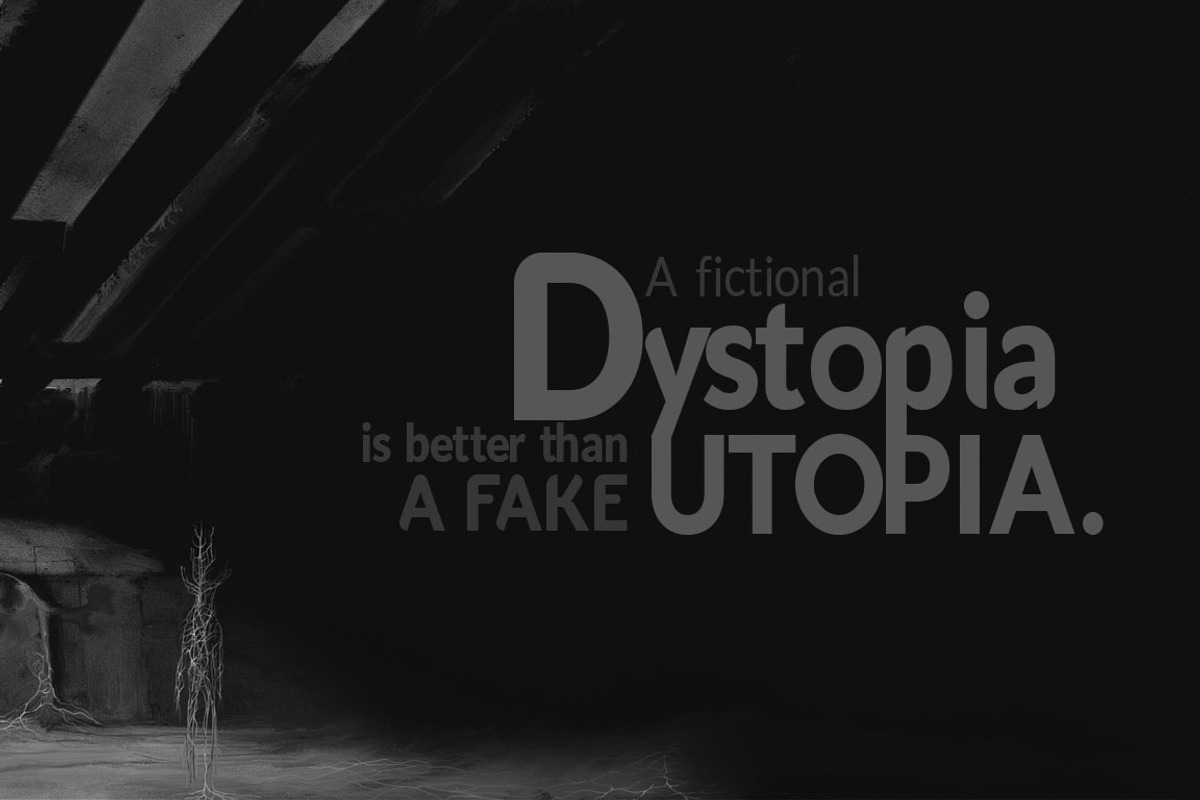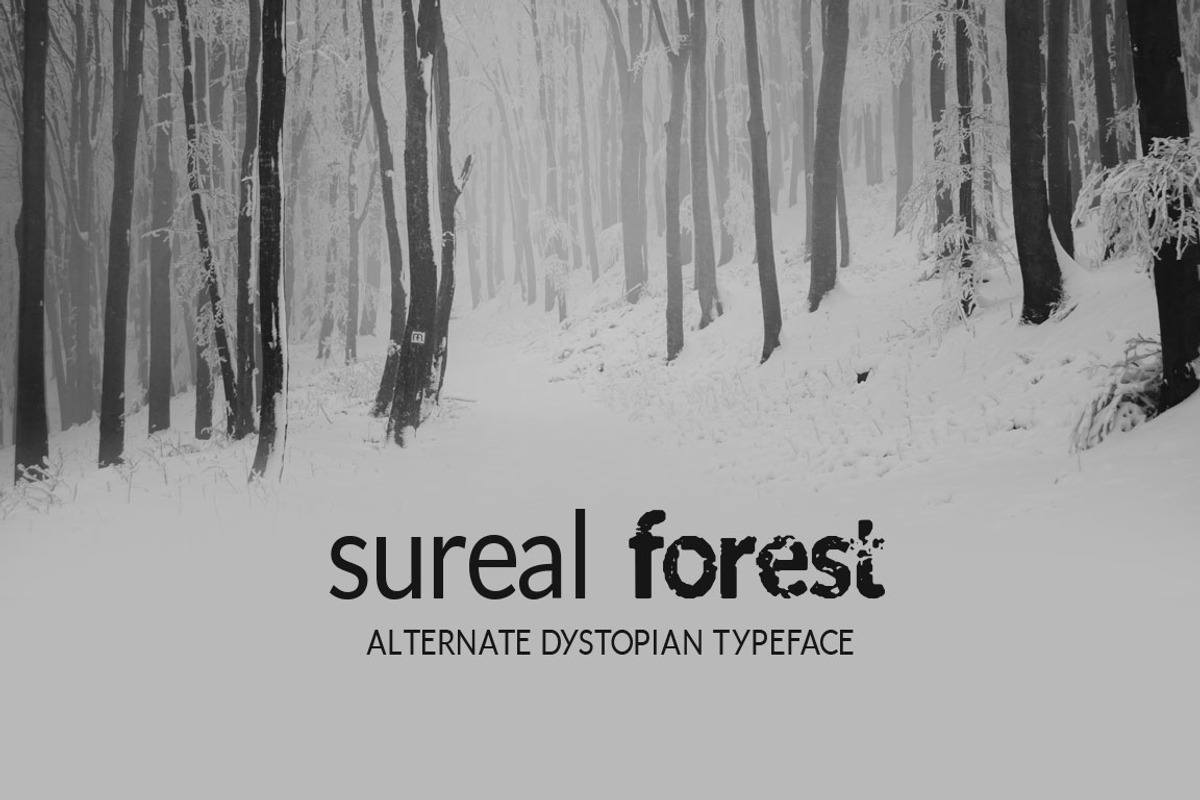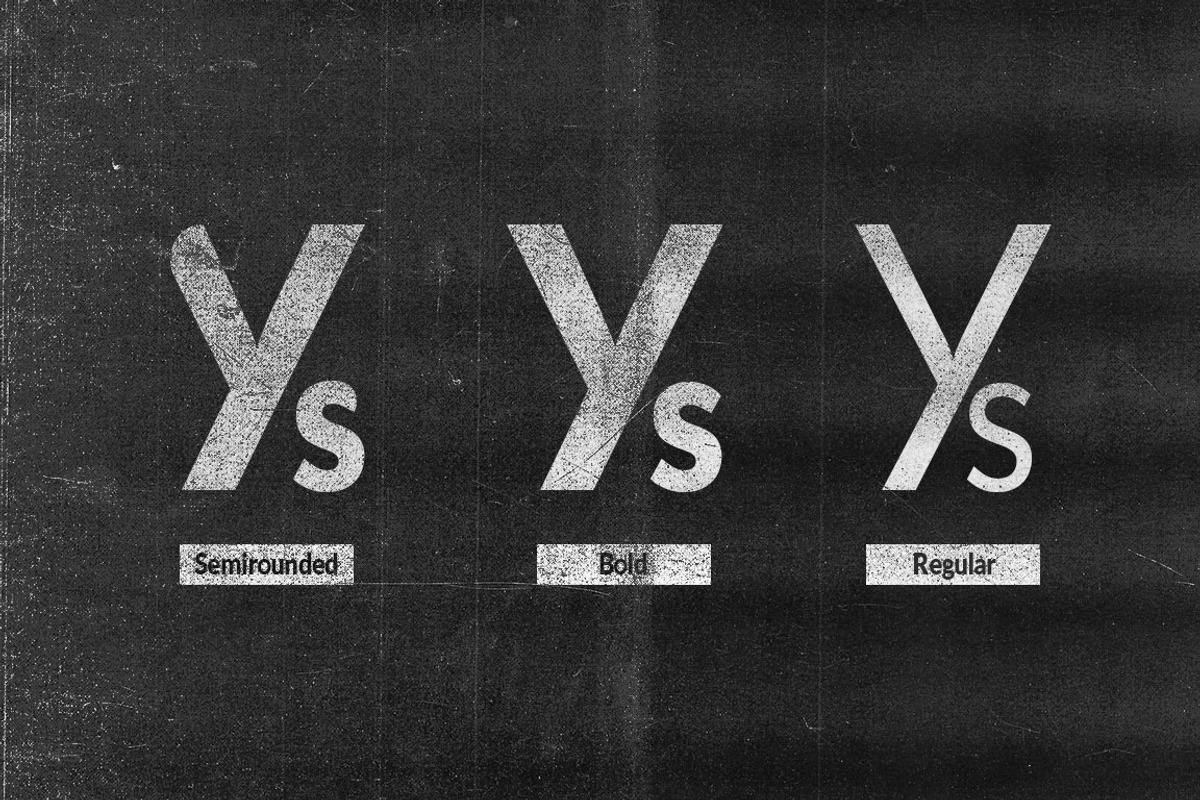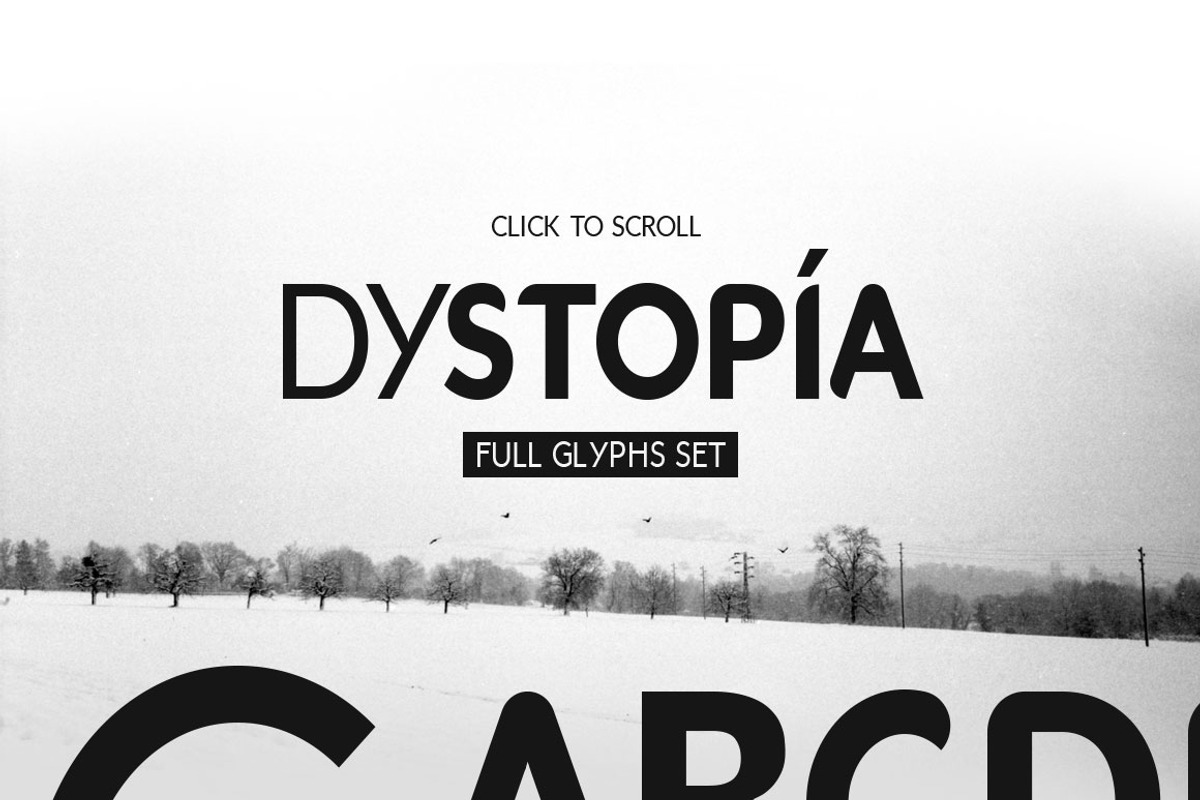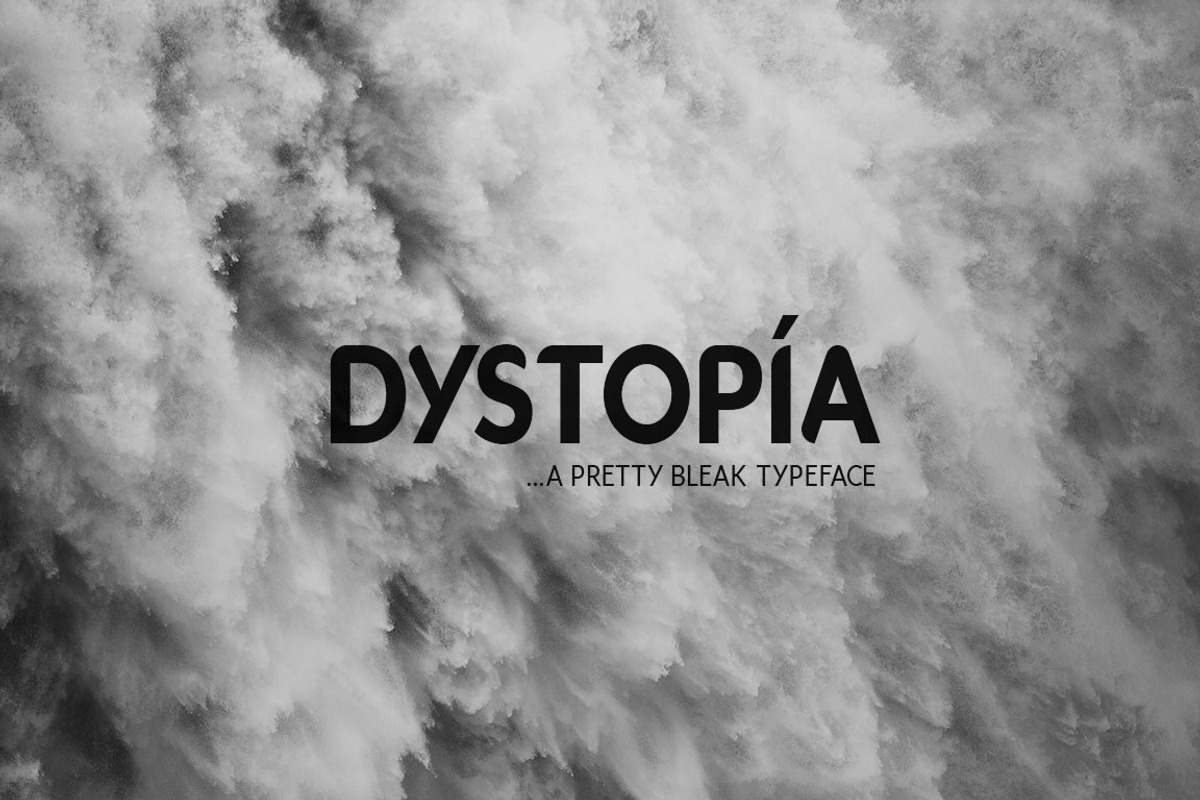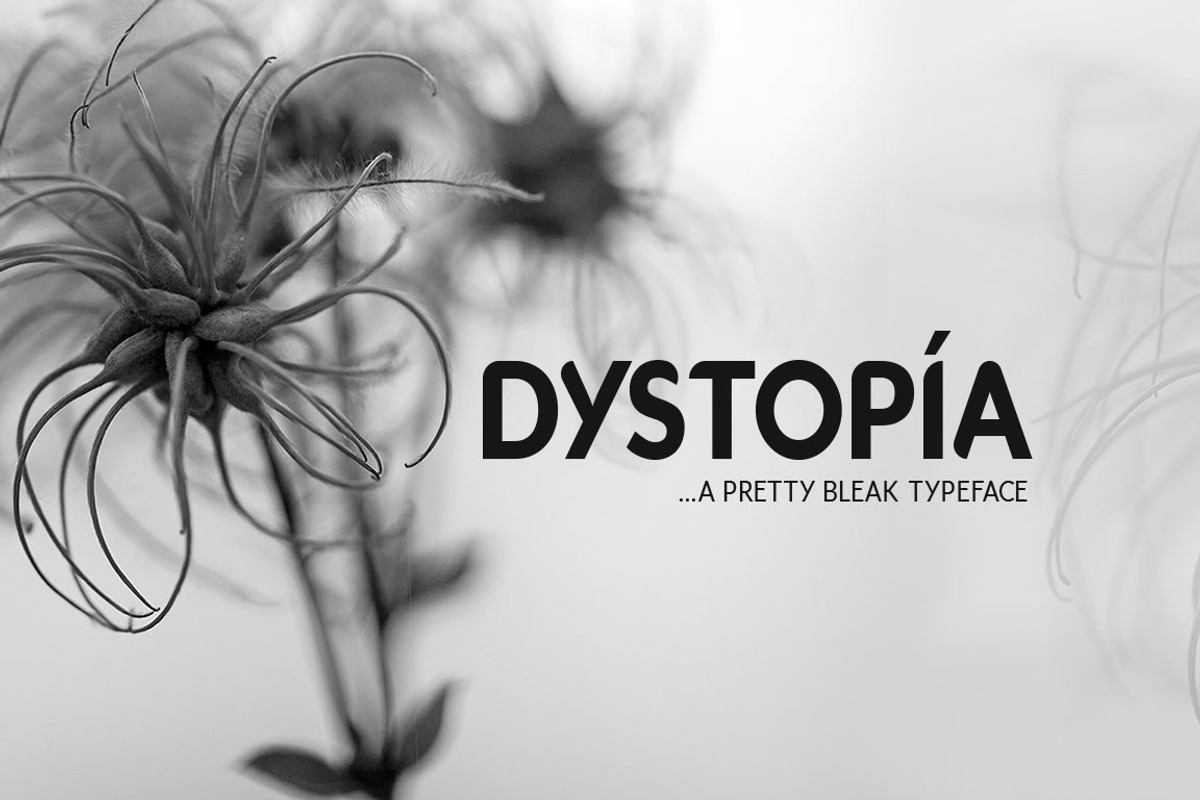
Dystopia Typeface
Dystopia Typeface by DesignSomething is a font selected for branding, posters, packaging, typography.
Why Dystopia Typeface is worth a look
Dystopia Typeface by DesignSomething fits naturally into Branding, posters, packaging, typography.